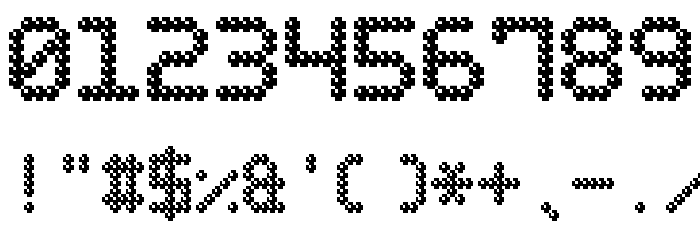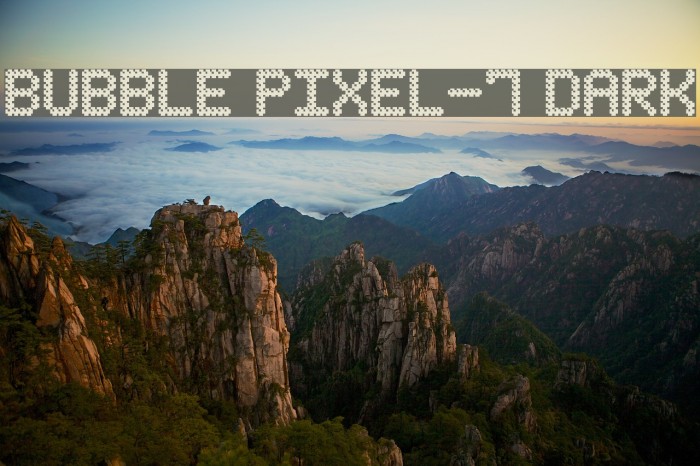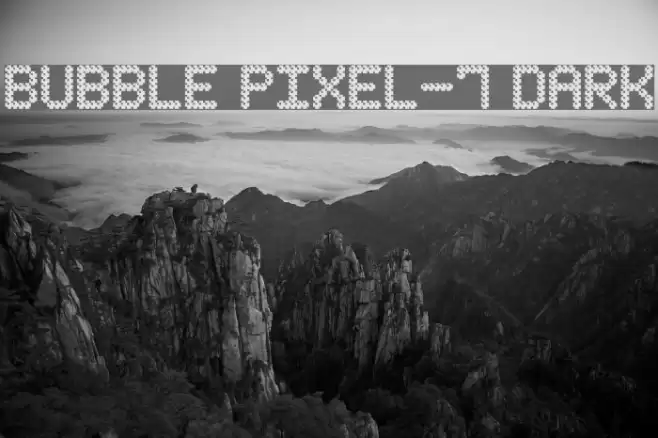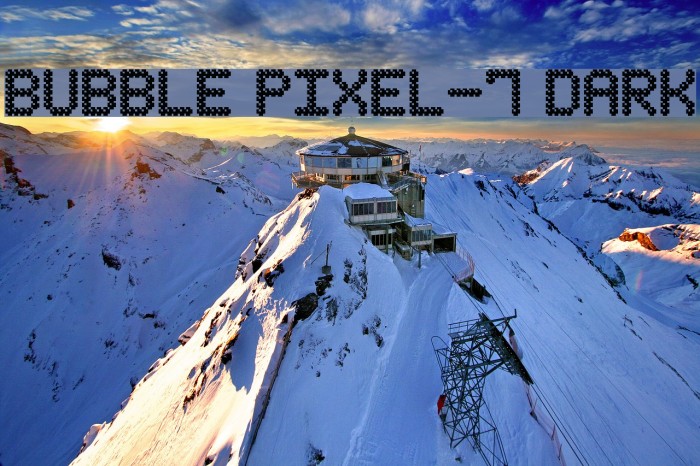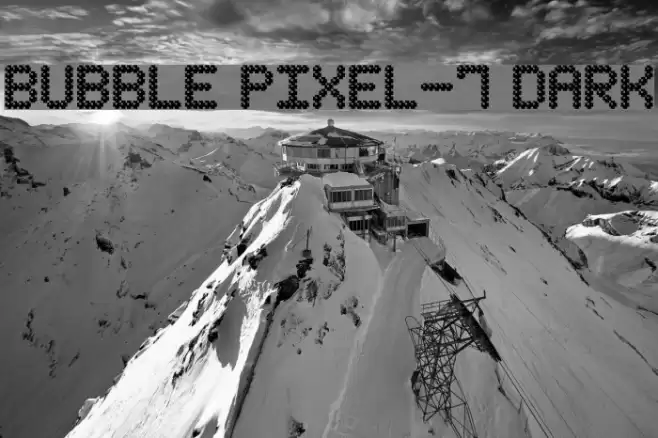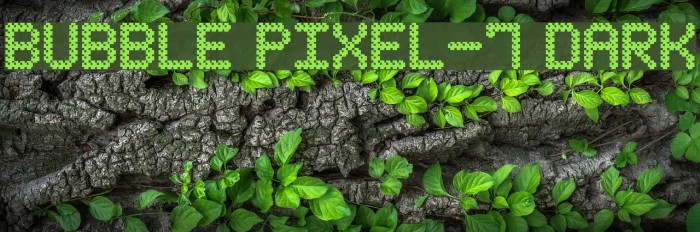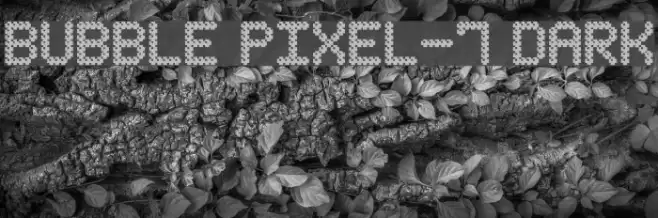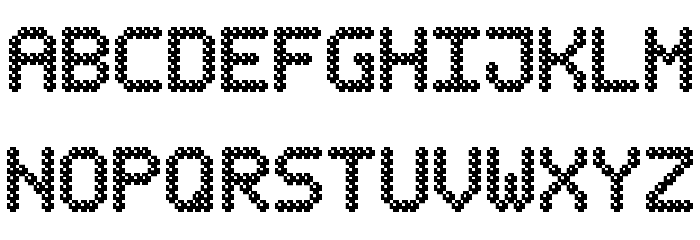
Bubble Pixel-7 Dark Font
Bubble Pixel-7 Dark Description
This font features a unique pixelated design, where each character is composed of small, rounded dots that create a bubble-like appearance. The characters are evenly spaced and maintain a consistent height, giving the font a balanced and cohesive look. The uppercase and lowercase letters, as well as the numbers and special characters, all share this distinct style, making it highly recognizable. The playful and digital aesthetic of this font makes it suitable for creative projects that require a modern and fun touch.
A pixelated, bubble-like font with rounded dots creating a playful digital aesthetic from Uncategorized fonts.
- Proposed Projects: Ideal for video game graphics, digital art projects, children's book covers, and playful branding.
- Use Case: Logos, Headlines, Digital Art